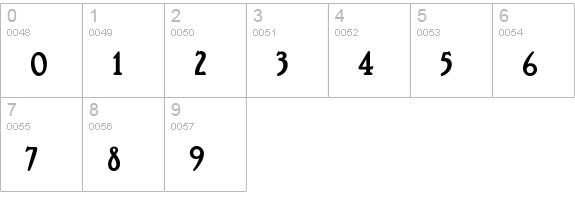
RialtoEF Font Details
RialtoEF font, a stunning typeface that exudes elegance and sophistication, is the perfect choice for any design project that demands a touch of refinement. With its clean lines and graceful curves, RialtoEF effortlessly captures attention and adds a touch of class to any text. But what sets RialtoEF font apart is not just its impeccable design, but also the fact that it is available for free. Yes, you read that right - this remarkable font can be yours without spending a dime. Whether you are a professional designer or a casual enthusiast, RialtoEF font offers you the opportunity to enhance your creations with a premium typeface, without breaking the bank. To get your hands on RialtoEF font, simply head over to FontsMarket.com, a trusted source for high-quality fonts. There, you can freely download this exceptional font and start incorporating its timeless beauty into your projects. Whether you're designing a logo, creating a poster, or crafting a website, RialtoEF font will elevate your work and leave a lasting impression. The versatility of RialtoEF font is also worth mentioning. With a wide range of weights and styles, it adapts effortlessly to various design aesthetics and scenarios. From bold headlines to elegant body text, this font offers the perfect balance between legibility and visual appeal. Its versatility ensures that your message is conveyed with utmost clarity and style. Moreover, RialtoEF font is not only visually captivating, but also highly functional. It is designed with meticulous attention to detail, ensuring that each character is well-crafted and visually balanced. This attention to detail guarantees a seamless reading experience and makes RialtoEF font a reliable choice for any project, be it in print or digital media. In conclusion, RialtoEF font is a remarkable typeface that combines timeless elegance with modern functionality. Its availability as a free download at FontsMarket.com makes it an irresistible choice for designers and creatives of all levels. Don't miss the opportunity to enhance your designs with this exquisite font and let RialtoEF font elevate your work to new heights of sophistication and style.